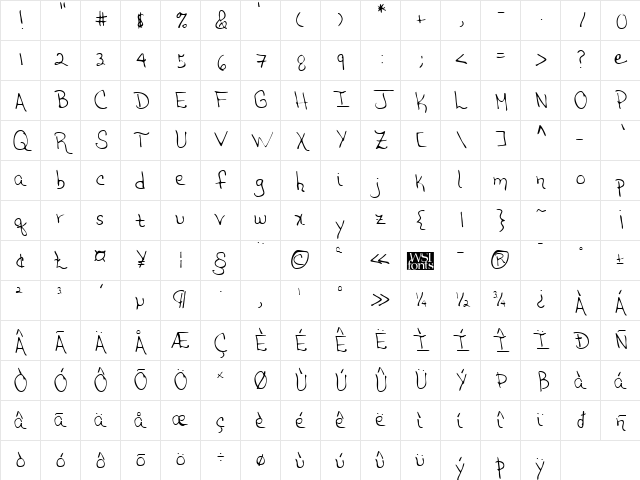
NatsHand Regular Free Font
NatsHand Regular
Design Context for NatsHand
NatsHand flows with the natural rhythm of handwritten lettering, making it ideal for designs that call for warmth and personal expression.
Font Pairing: Combine NatsHand with a simple geometric sans for maximum contrast - the tension between flowing curves and clean structure is a classic typographic pairing.
Pro Tip: Use NatsHand for short runs of text - names, titles, or taglines. Extended body copy in script faces tires the eye quickly.